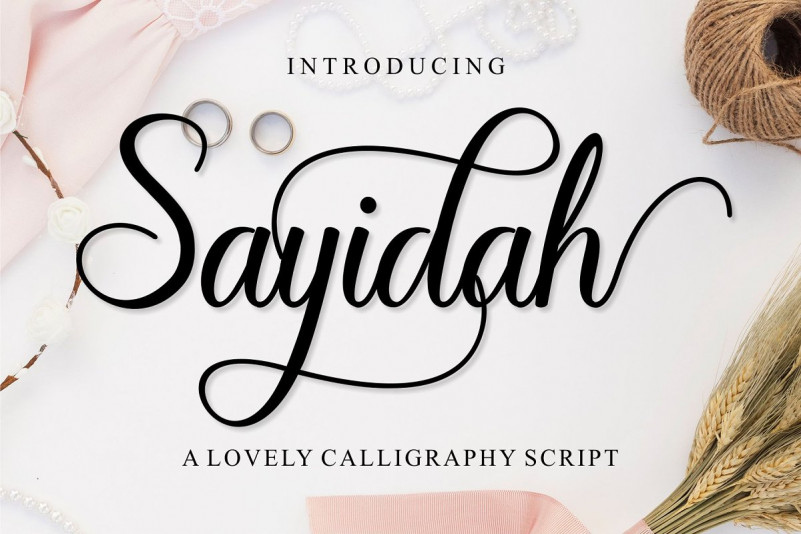
Sayidah Font
Sayidah Font is perfect for elegant branding projects, luxury packaging designs, sophisticated wedding invitations, high-end fashion graphics, premium lifestyle publications, exclusive event materials, refined corporate communications, and prestigious award ceremonies.
This exciting Sayidah Font captivates audiences with its regal elegance and sophisticated letterforms that embody nobility, grace, and timeless refinement. The font's majestic character and distinguished presence make it an exceptional choice for projects requiring prestige, exclusivity, and aristocratic appeal that resonates with discerning audiences who appreciate luxury and sophisticated design sensibilities.
The Sayidah Font family encompasses various refined styles including Regular, Bold, Light, Italic, Ornate, and Ceremonial versions, providing designers with comprehensive options for creating distinguished and visually striking luxury brand communications and prestigious typographic compositions.
The aristocratic character of Sayidah Font makes it particularly valuable for luxury brands, premium services, exclusive events, and high-end establishments that need to convey sophistication, exclusivity, and prestigious quality. Its refined styling appeals to affluent consumers who expect the finest aesthetic experiences and appreciate distinguished design excellence.
Typography connoisseurs choose Sayidah Font for its exceptional elegance and commanding presence across various prestigious applications. The font maintains its regal character from intimate luxury invitations to grand ceremonial displays, ensuring consistent brand prestige and sophisticated visual communication throughout all exclusive touchpoints.
The versatile applications of Sayidah Font extend from personal luxury correspondence to comprehensive premium brand systems, maintaining its distinguished character across different scales and prestigious contexts. This adaptability makes it invaluable for organizations requiring consistent aristocratic expression across multiple luxury market segments.
Prestigious brands utilize Sayidah Font to establish exclusive identities that communicate luxury, heritage, and exceptional quality in competitive premium markets. The typeface's regal appeal helps luxury organizations differentiate themselves while attracting affluent consumers who value sophistication, exclusivity, and prestigious brand associations in their luxury purchasing decisions.